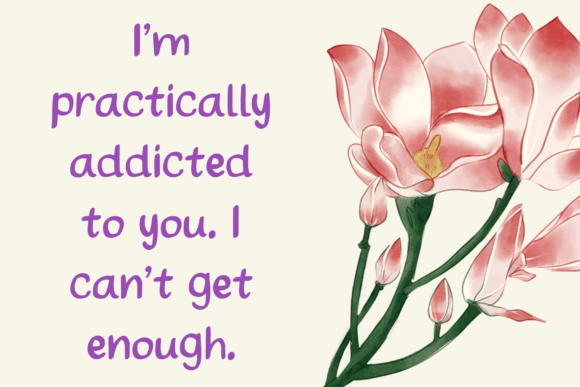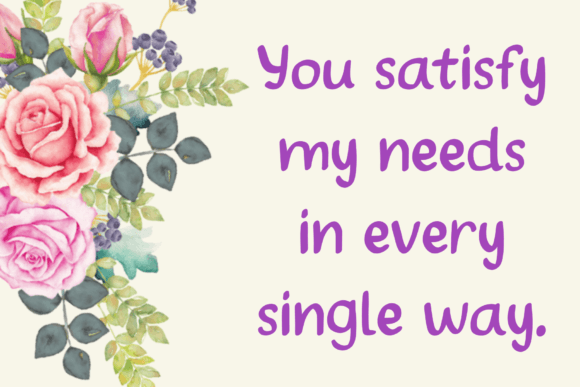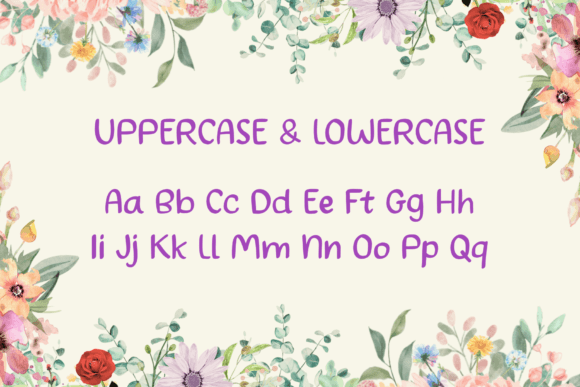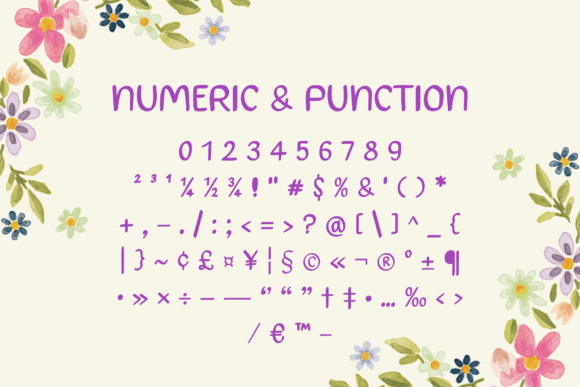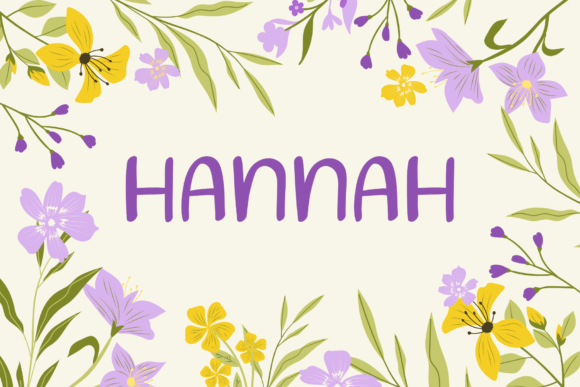
The Perfect Match for Your Crafty Projects
Have you ever been rummaging through your craft supplies, looking for the perfect font to give your handmade cards or DIY decorations that extra special touch? I know I have! It’s that moment of frustration and excitement when you finally stumble upon the perfect font to bring your creative vision to life.
Meet Hannah Font, a charming and friendly handwritten font that is sure to add a personal touch to your crafty projects. With its unique and playful style, Hannah Font is perfect for designers who want to create unique and eye-catching designs that stand out from the crowd.
Whether you’re a seasoned designer or a crafty beginner, Hannah Font is a valuable addition to your design toolkit. Its versatility and charm make it an ideal choice for a wide range of projects, from invitations and party decorations to scrapbooking and journaling.
Hannah Font Key Features
- Font Family: Hannah is a sans-serif font family designed for digital use.
- Resolution: Designed for use at high resolutions, making it suitable for both print and digital applications.
- Size: Available in multiple font sizes, ranging from 8pt to 120pt, making it versatile for various design needs.
- Unique Characteristics: Hannah features a clean, modern design with a subtle rounded edge, making it highly legible and visually appealing.
Hannah Font Review
Overall, I think the Hannah Font is a solid choice for designers. It’s got a certain charm to it that’s hard to deny. ✨
- Unique and elegant feel: The Hannah Font has a distinctive look that sets it apart from more common font choices.
- Excellent for body text: It’s clear and easy to read, making it perfect for large blocks of text.
- Works well in digital and print: Whether you’re designing for a website or a physical brochure, the Hannah Font adapts well.
- Not ideal for headings: While the Hannah Font is great for body text, it can get a bit lost in larger font sizes.
- Some letters can be tricky: The font’s unique design can make certain letters (like ‘k’ and ‘q’) difficult to read at smaller sizes.
- Limited font weights: The Hannah Font only comes in a few different weights, which can limit its versatility.
- ⚠️ Not suitable for bold or dramatic text.
Overall, I’d say the Hannah Font is a great choice for designers looking for a unique, elegant font. Just be mindful of its limitations, and it’s sure to be a great addition to your design arsenal.
Tips for Getting the Most Out of the Hannah Font
To get the most out of the Hannah font, use it in designs where a elegant, handwritten feel is desired. Some common use cases include:
- Special occasion cards (e.g., birthdays, anniversaries)
- Brand logos and typography
The Hannah font is perfect for designs that require a touch of elegance and sophistication. Use it to create beautiful, eye-catching designs that stand out from the crowd.